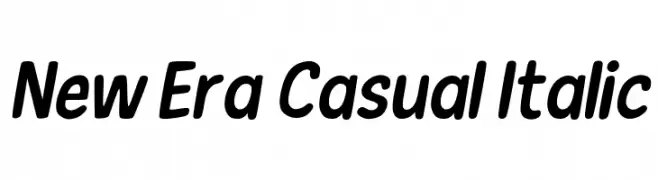
A bold, rounded font with a casual and friendly style.
A bold, italicized font with a casual, modern style and rounded edges.
A casual, italic font with rounded, smooth characters.
A playful, rounded font with a casual and friendly style.